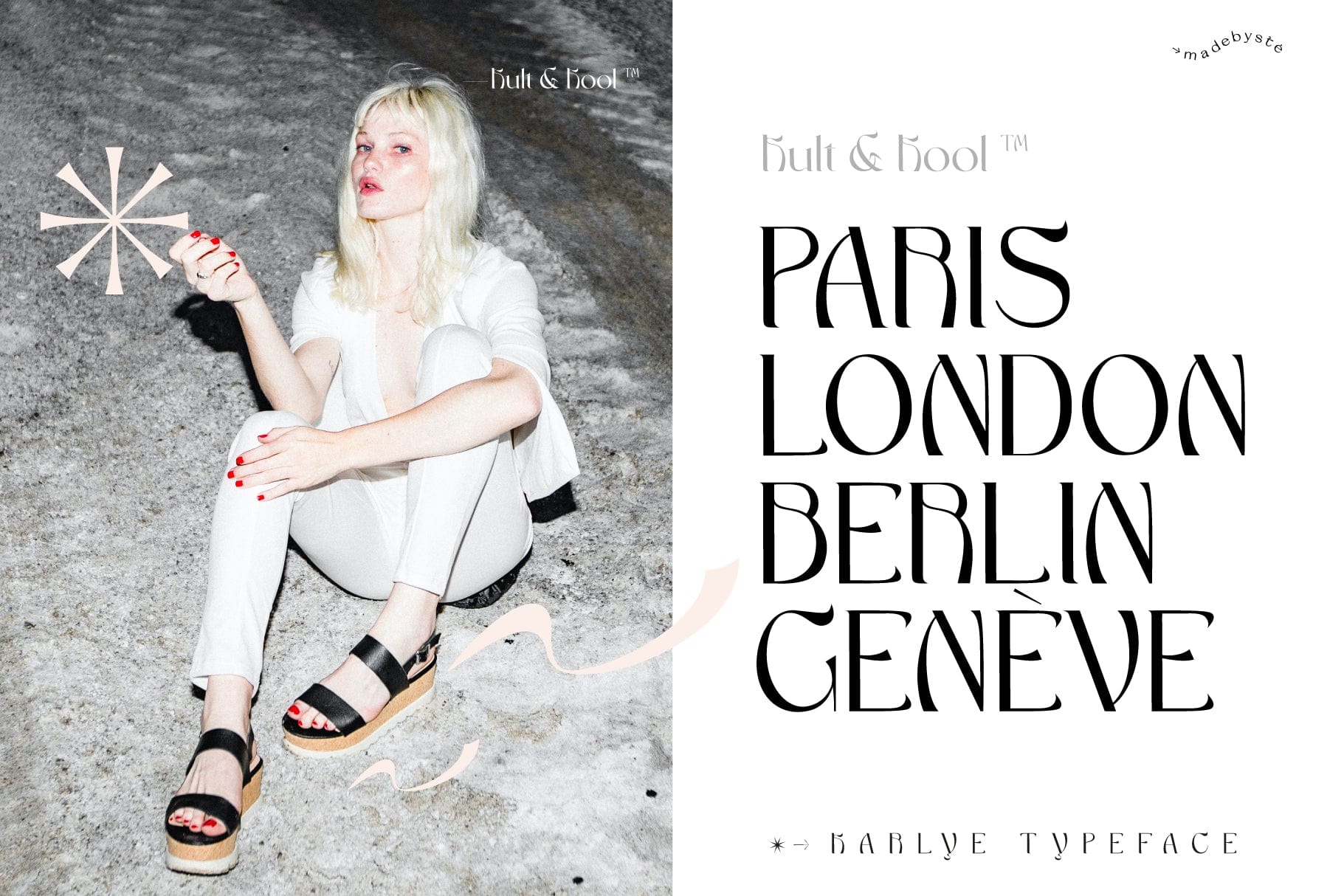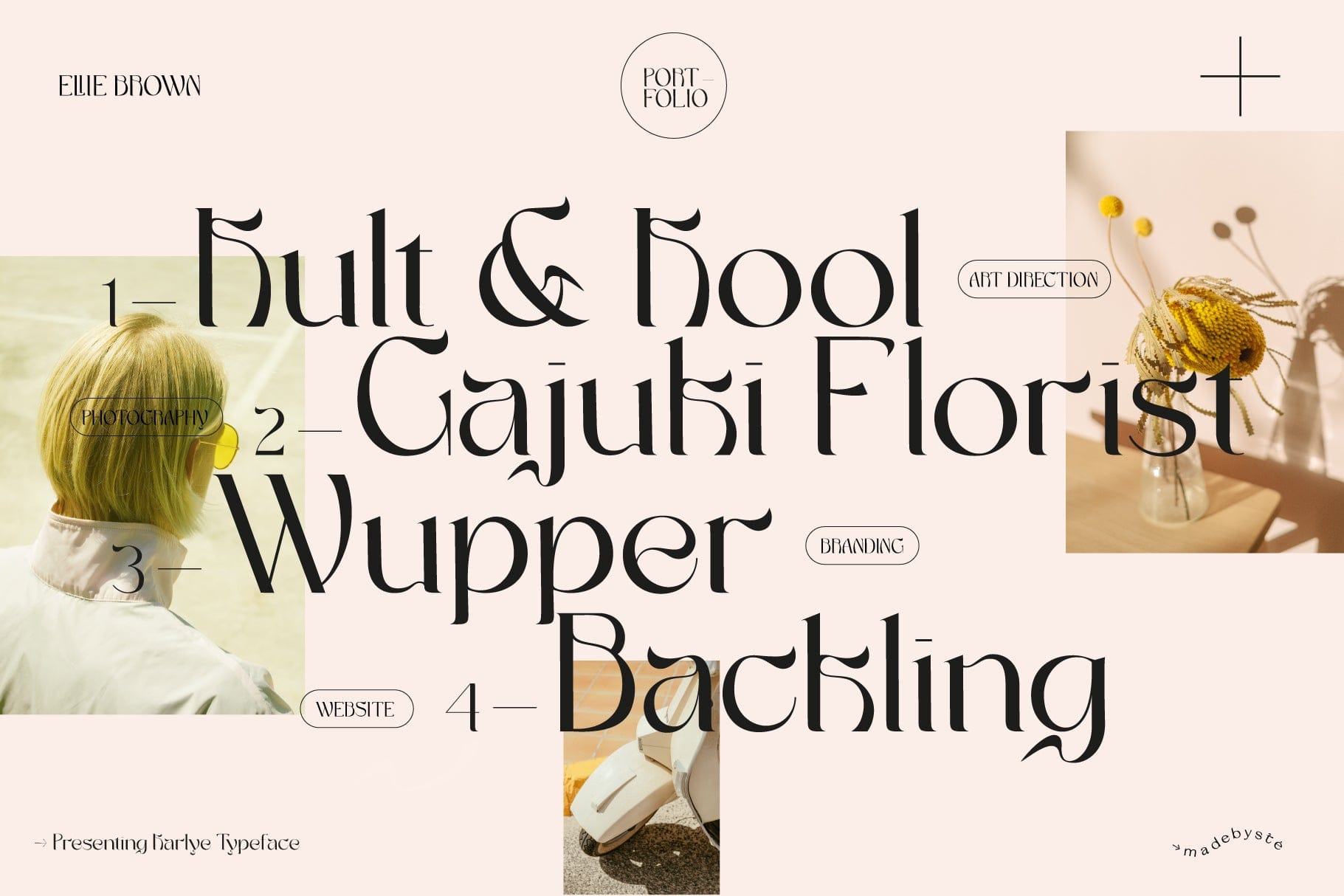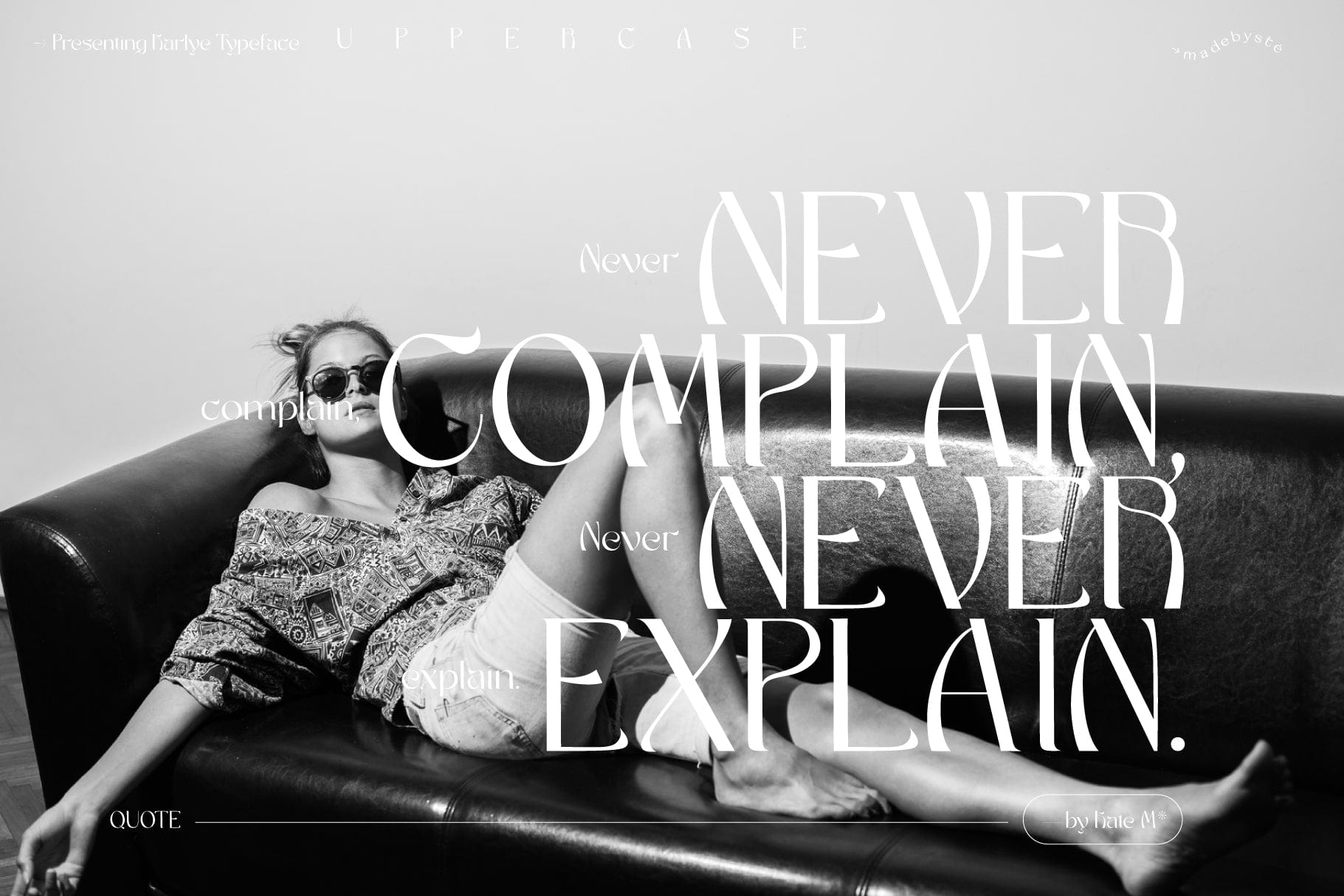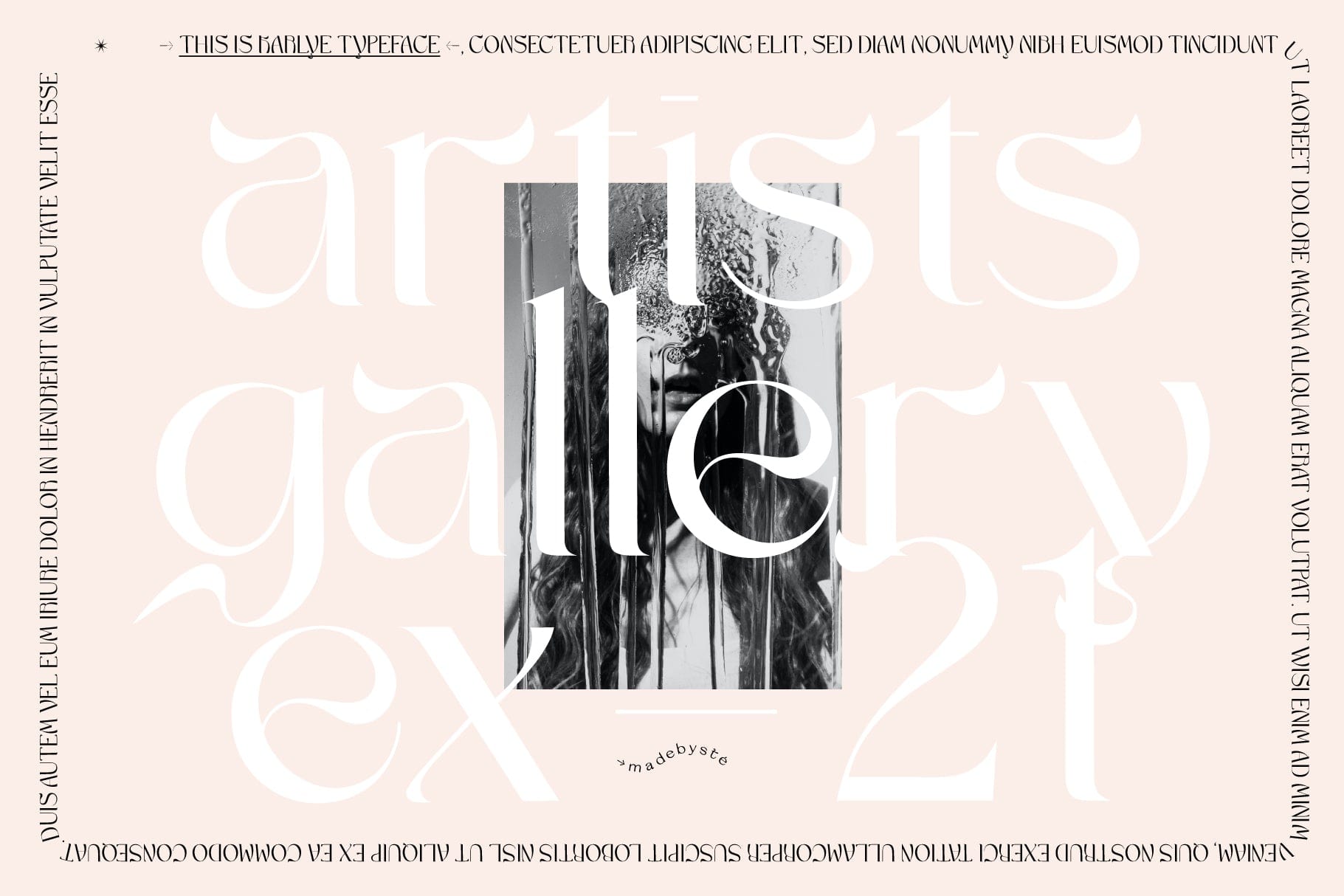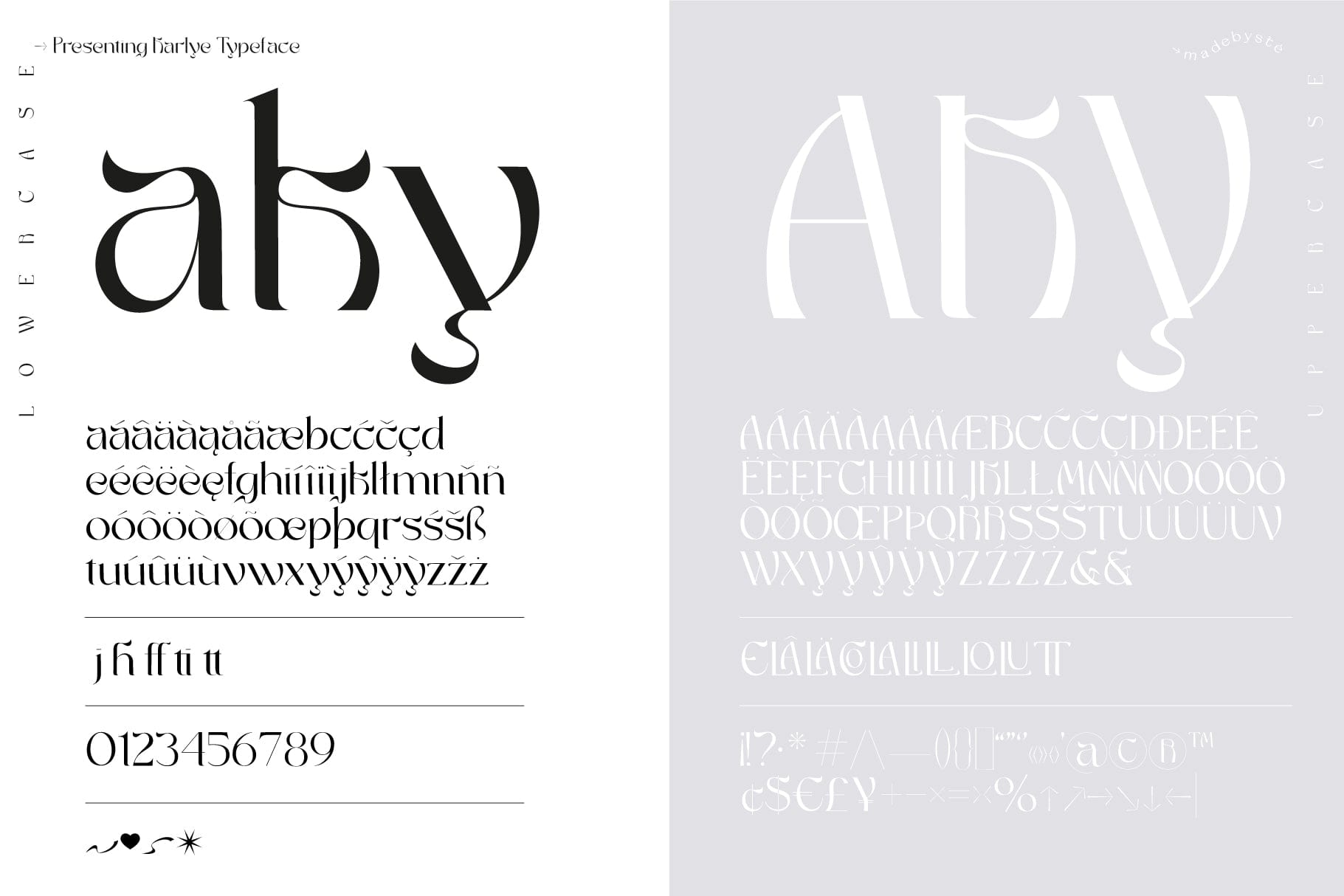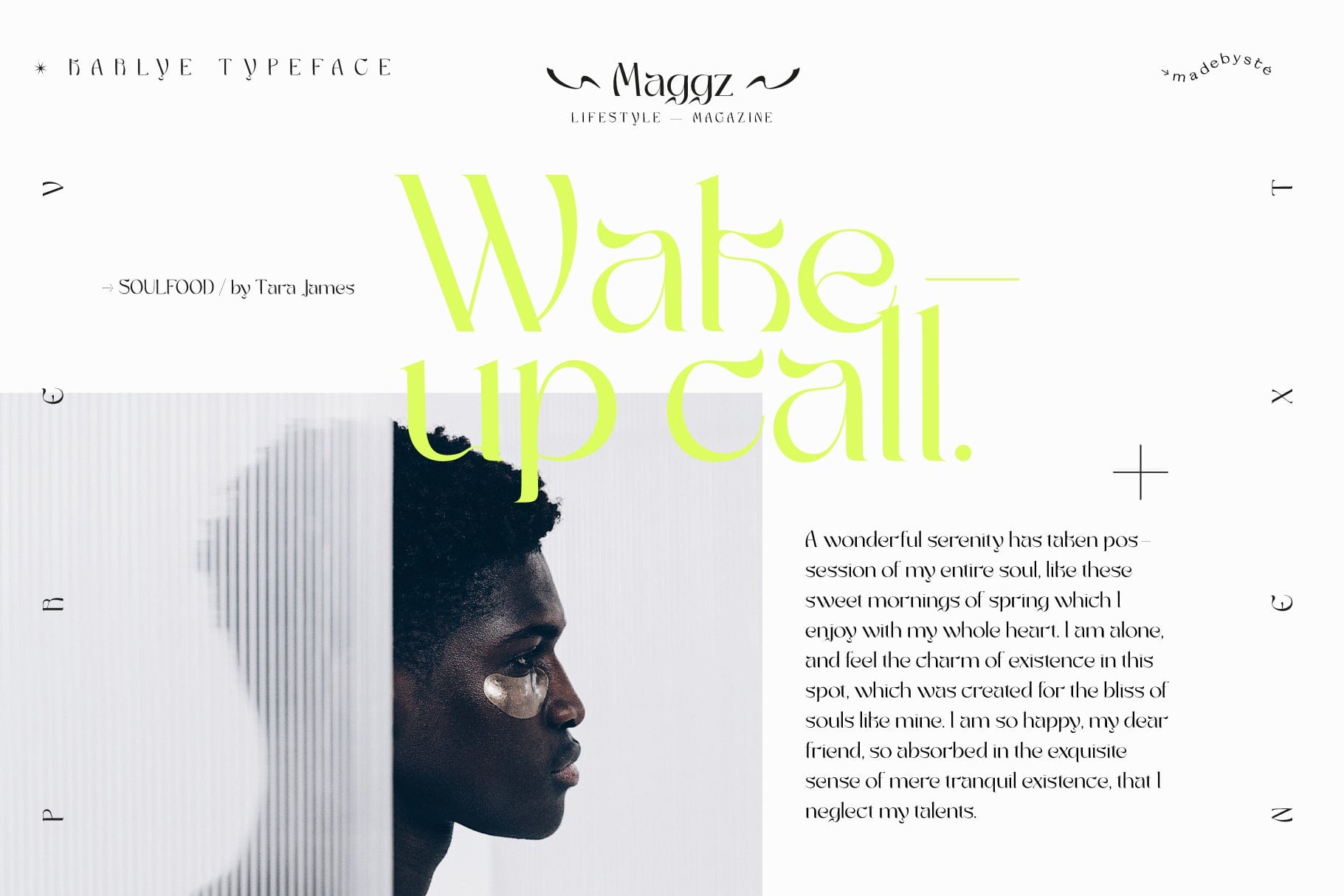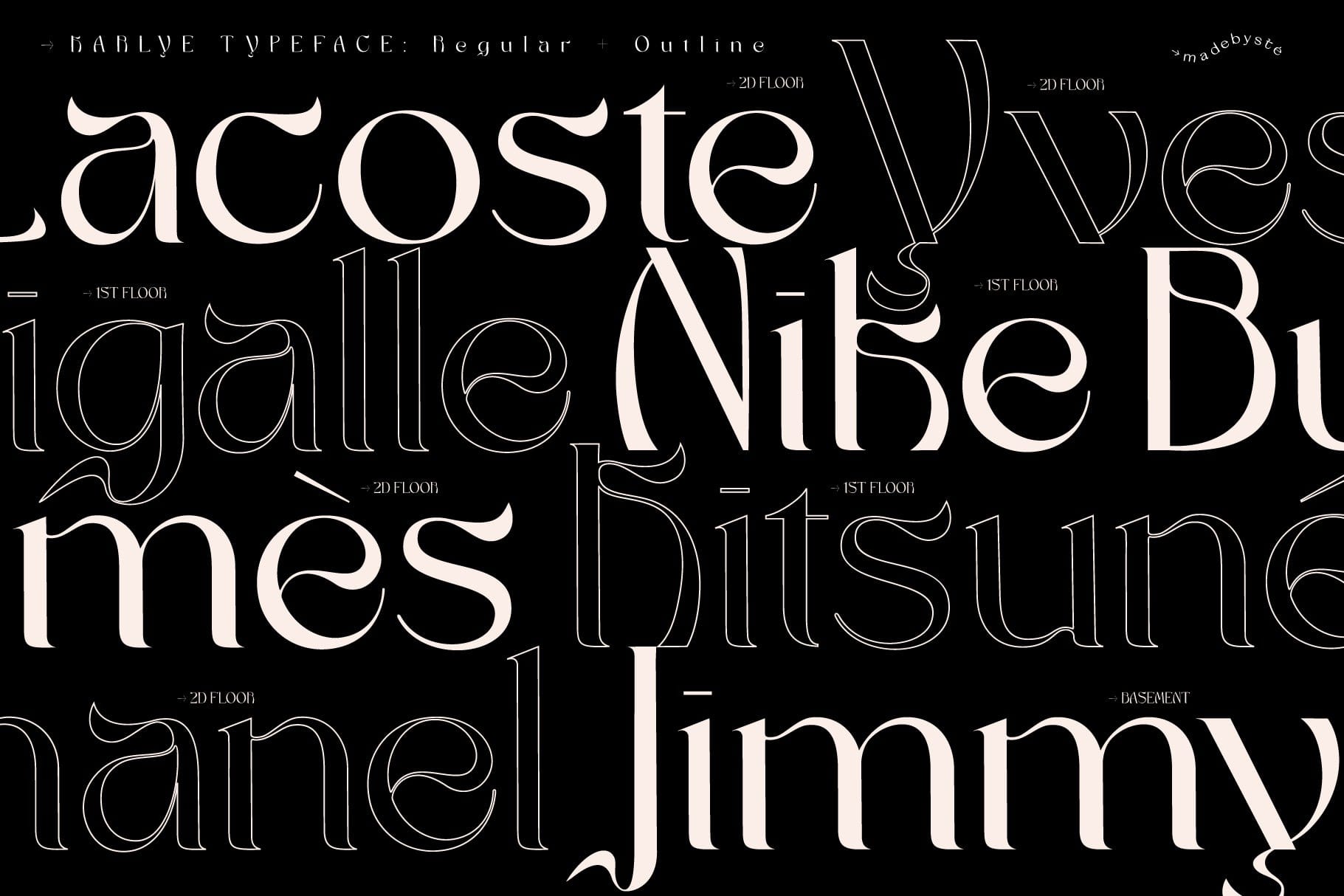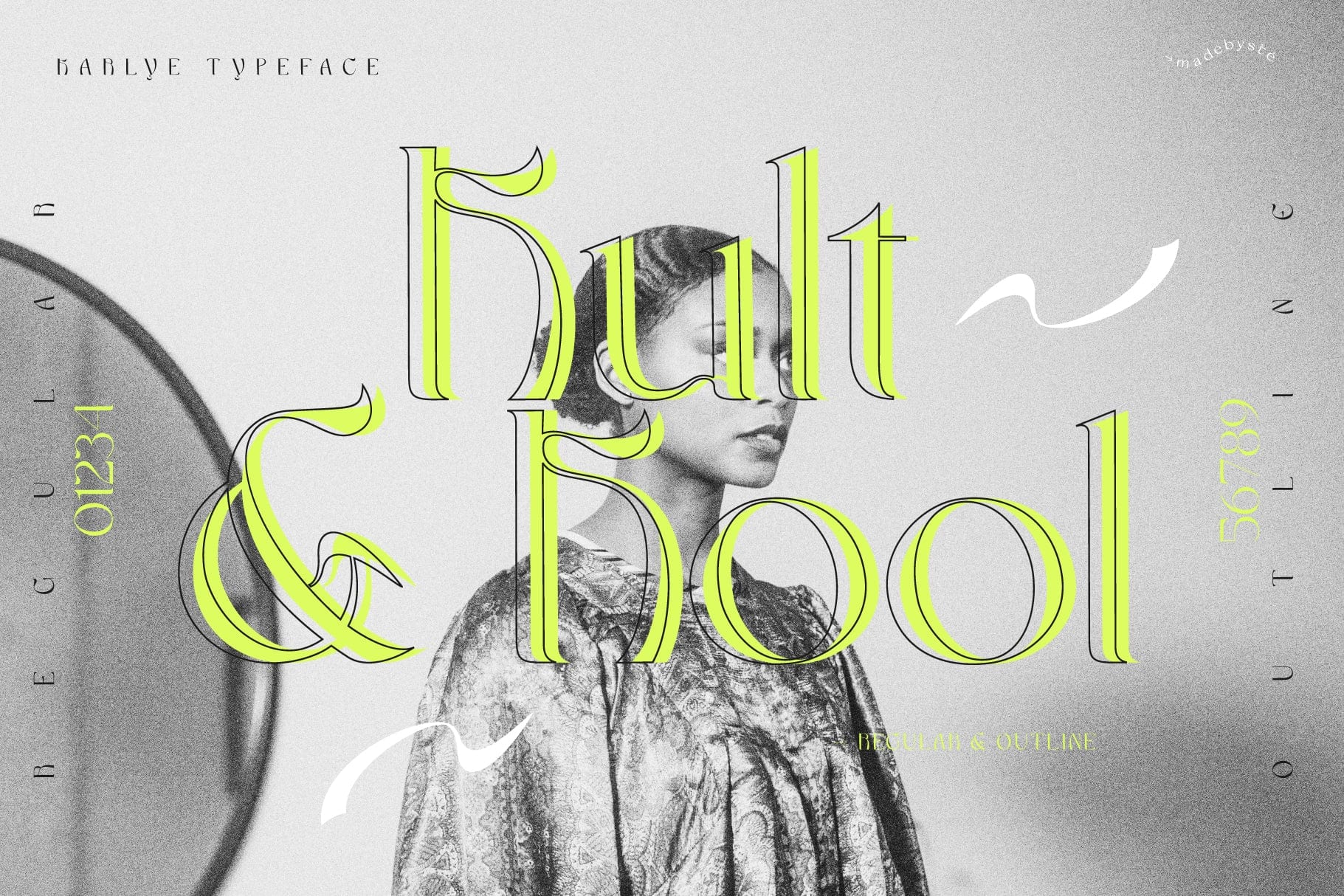
Karlye Typeface
Karlye typeface is a fearless and modern typeface perfect for big headlines for both print and web. Create strong and impactful layouts with Karlye. This typeface is also great for logo design.
Includes: Karlye Regular + Karlye Outline